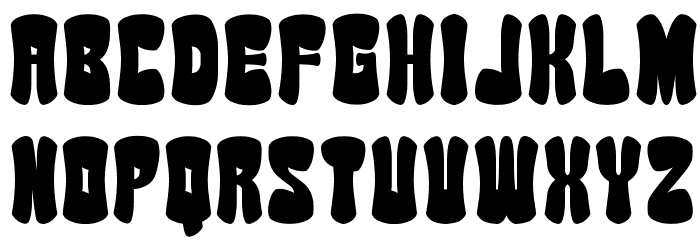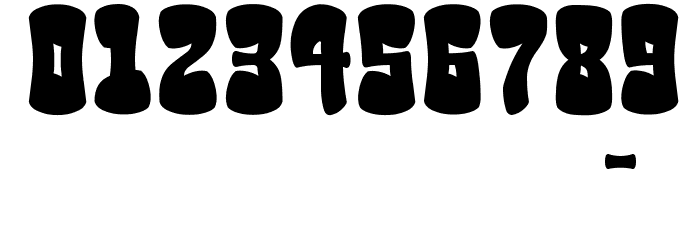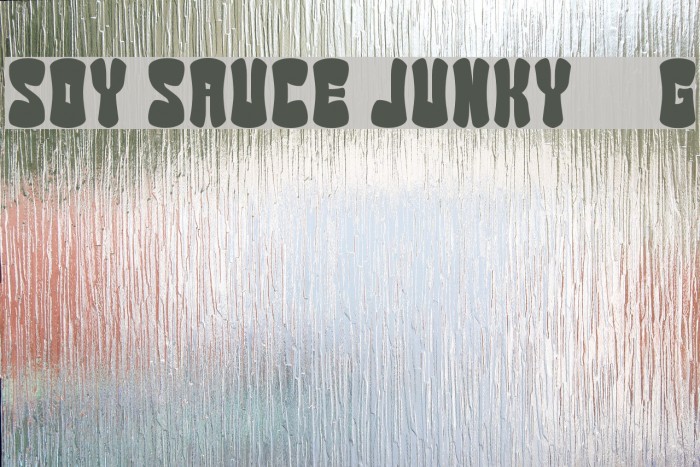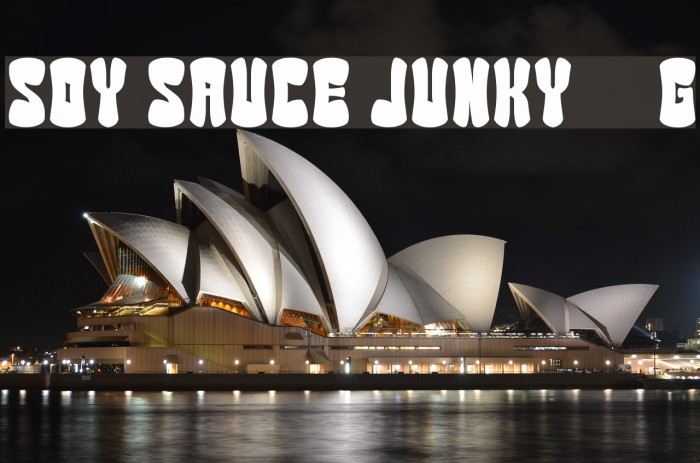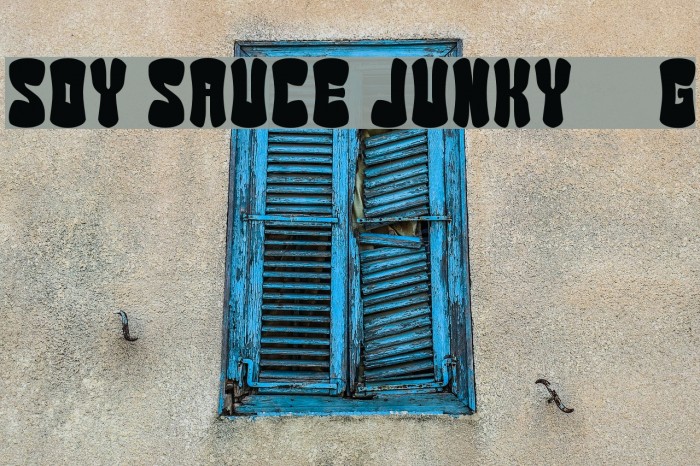
Soy Sauce Junky__G Font
This font features bold, rounded characters with a playful and chunky appearance. Each letter is designed with a thick, uniform stroke that gives it a strong presence. The characters are slightly condensed, enhancing their boldness and making them stand out. The overall style is decorative and fun, with a whimsical touch that adds personality to any design. The numbers and special characters maintain the same bold and rounded style, ensuring consistency throughout. This font is ideal for projects that require a strong visual impact and a playful tone.
A bold, rounded, and playful font with a chunky appearance.
- Proposed Projects: Perfect for children's book covers, playful branding, posters, and any design needing a fun and bold statement.
- Overall Style: Playful, Decorative
- Use Case: Headlines, Posters, Branding